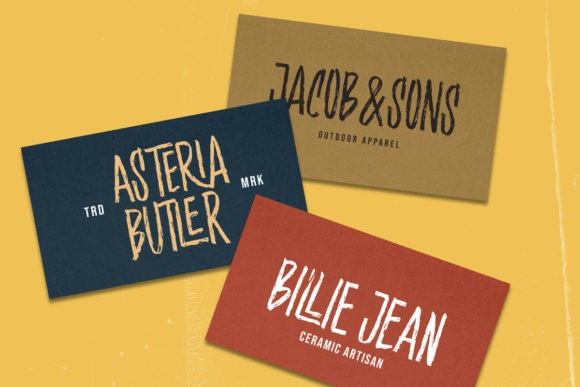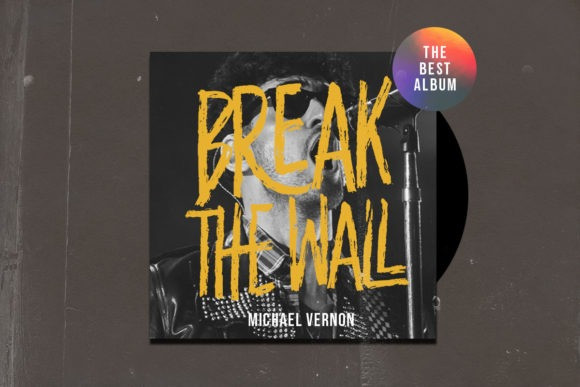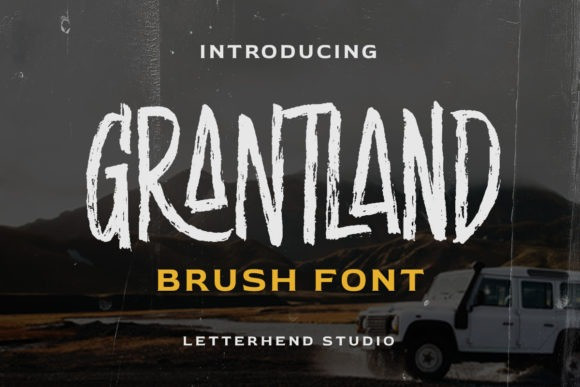
Grantland Font
Grantland Brush Font is a cool, bold and brushed display font. It is suitable for designs such as t-shirts, sportswear, logos, advertisements, clothing, and more.